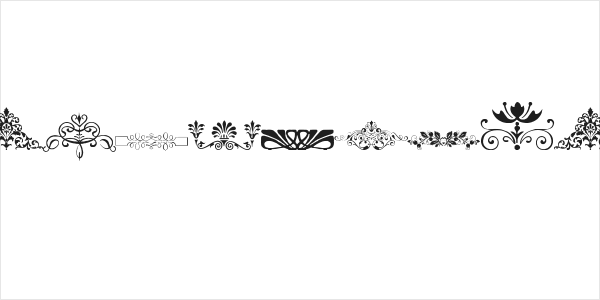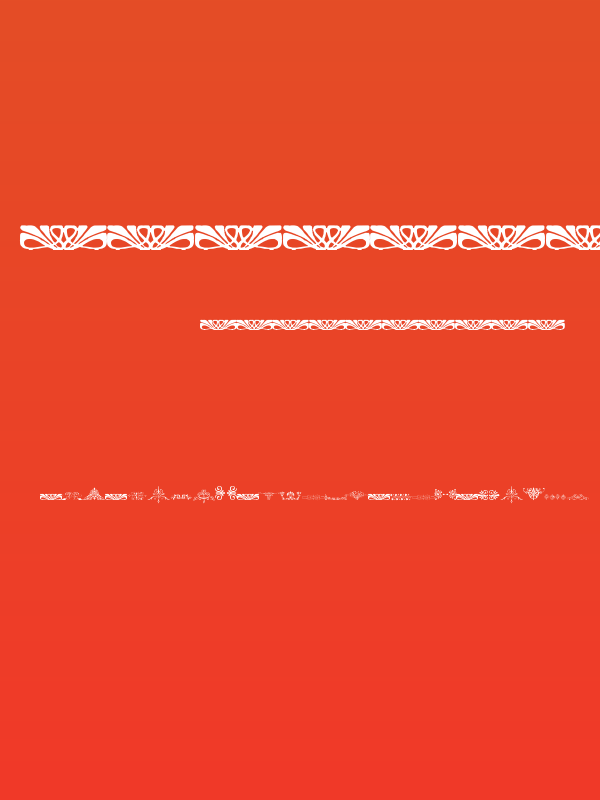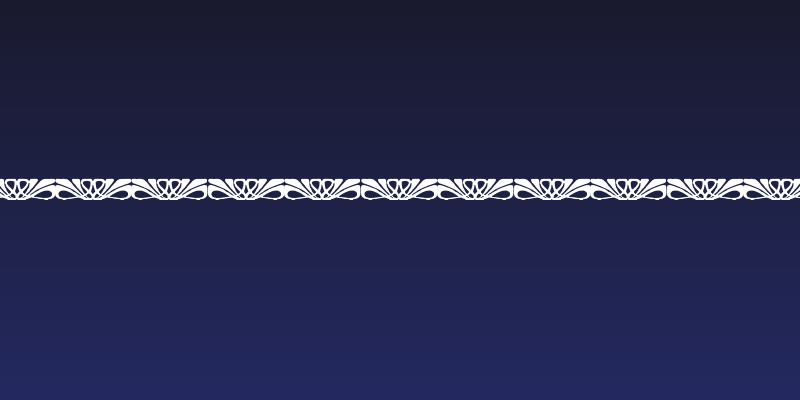
Vintage Decorative Signs 17 Font
Vintage Decorative Signs 17 Description
A collection of ornate, vintage-inspired decorative borders and flourishes featuring symmetrical, floral, and geometric motifs. The designs are highly detailed with a classic, ornamental style, suitable for embellishing invitations, certificates, or signage.
| Overall Style | Vintage, Decorative, Ornamental |
| Use Case | Borders, Dividers, Decorative accents |
| Proposed Projects | Wedding invitations, certificates, vintage signage, book covers, greeting cards, decorative packaging. |